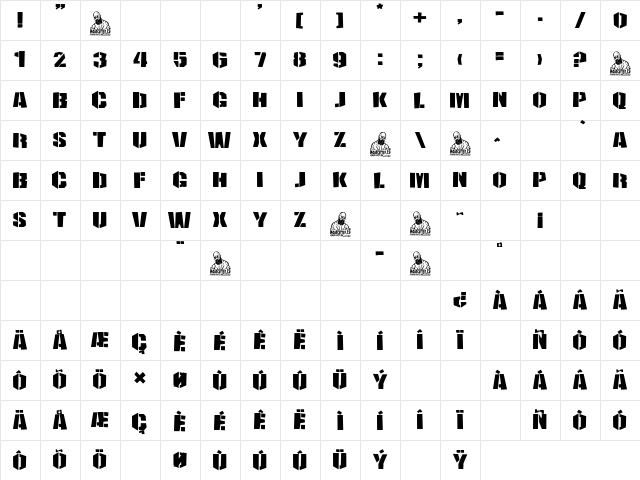
Stencil Gothic Regular Free Font
Stencil Gothic Regular
Designer: Woodcutter Manero
Design Context for Stencil Gothic
Stencil Gothic borrows the utilitarian aesthetic of stencil lettering, with its characteristic cutaways and no-frills construction lending an industrial edge.
Pro Tip: Use Stencil Gothic at large sizes on packaging, posters, or apparel where the stencil cutaways read clearly. Avoid small sizes where those gaps become visual noise.